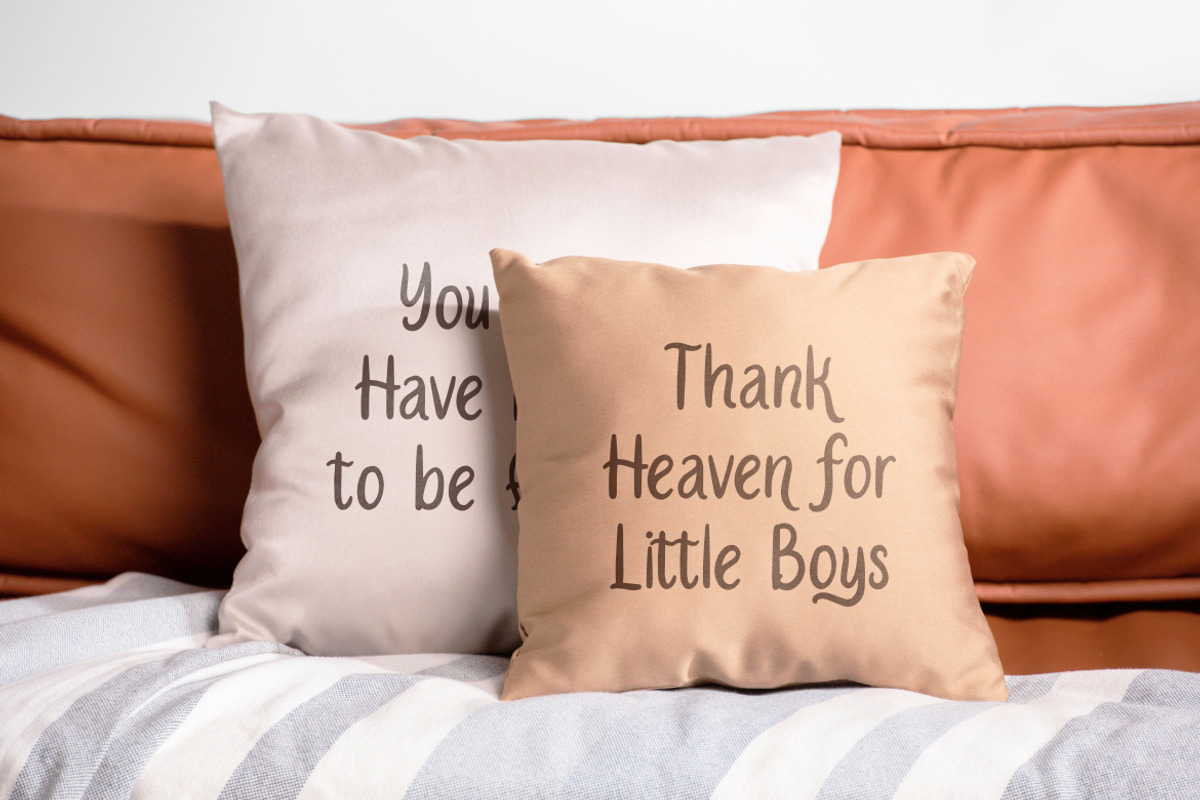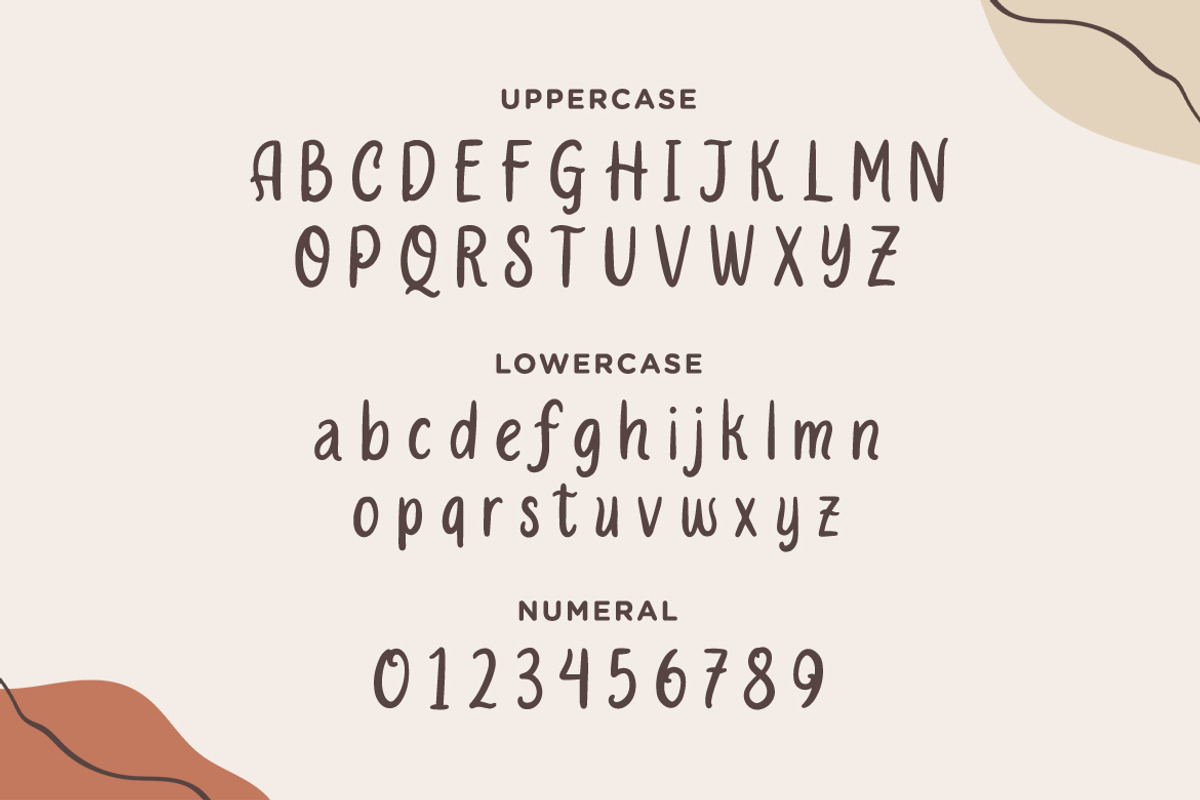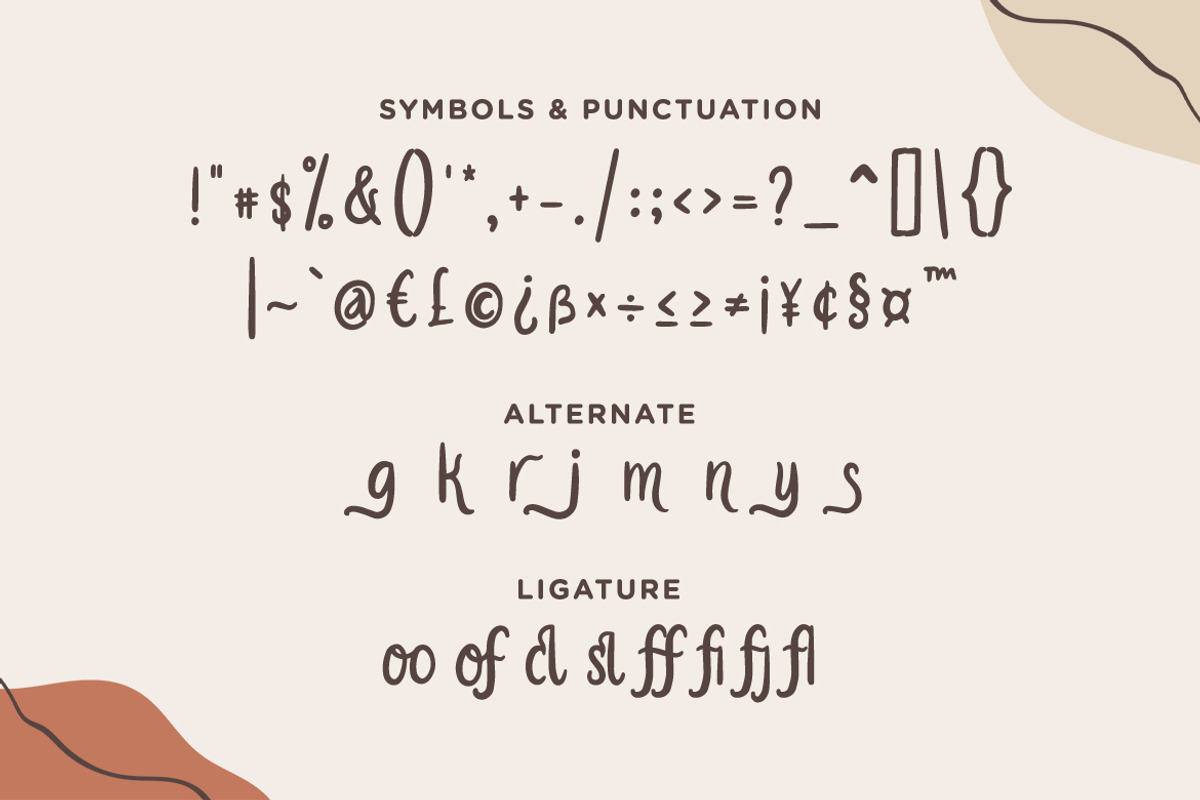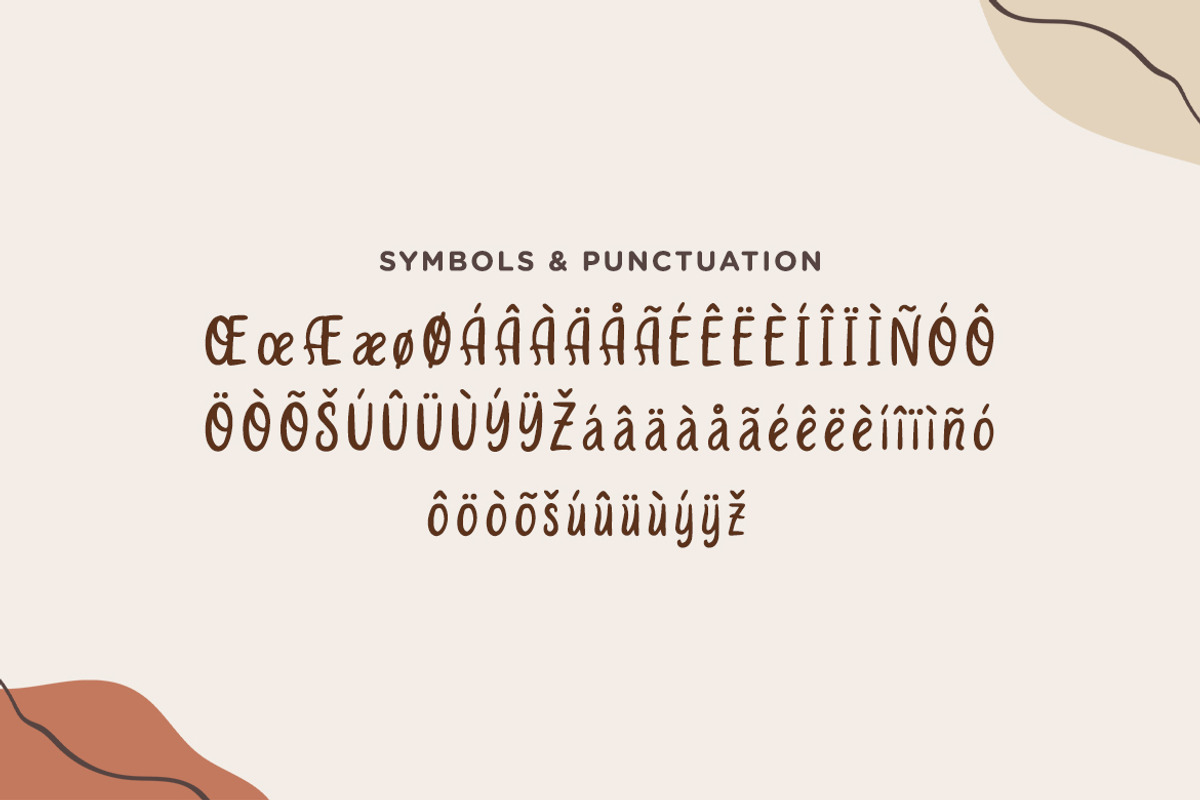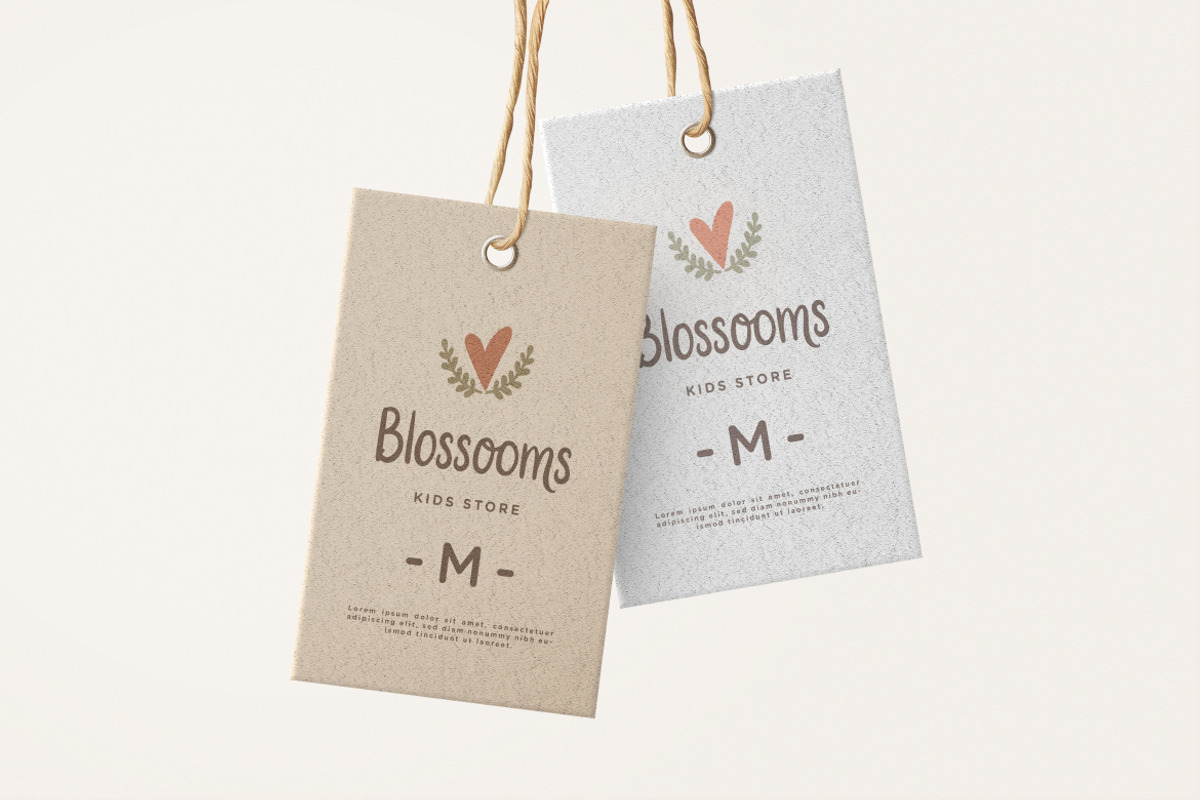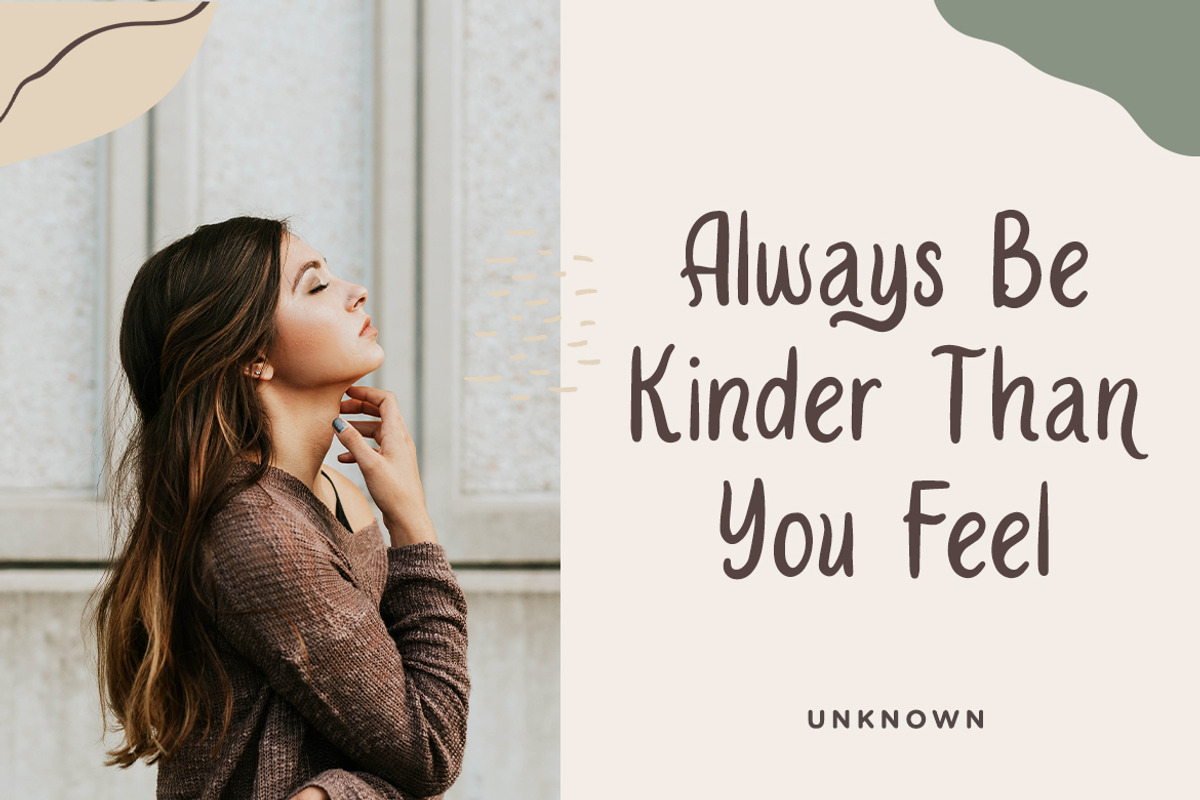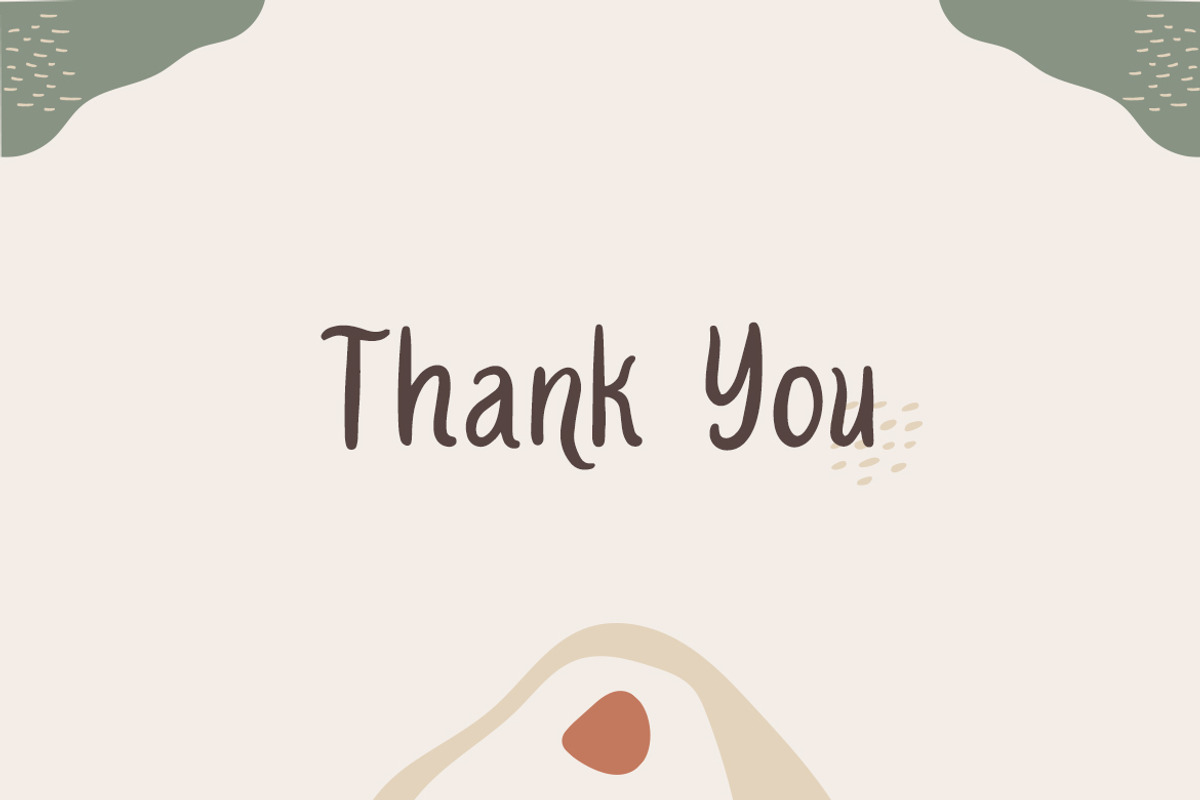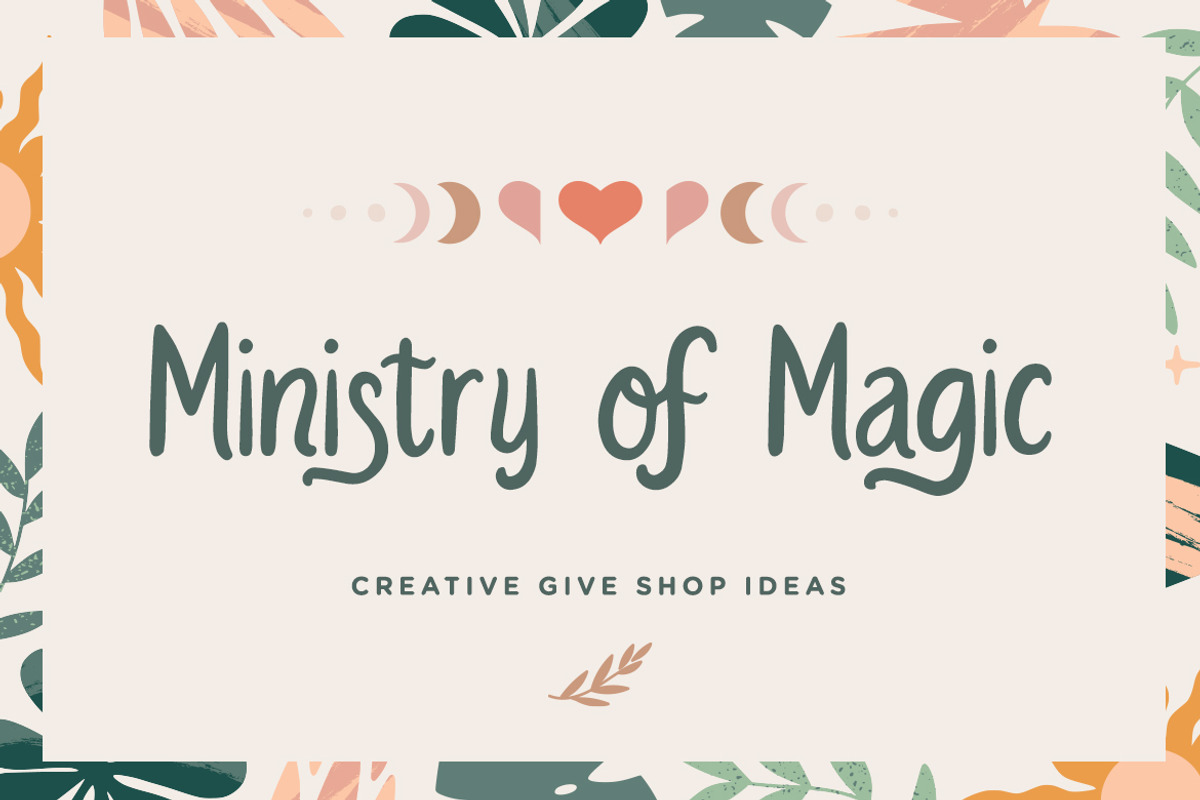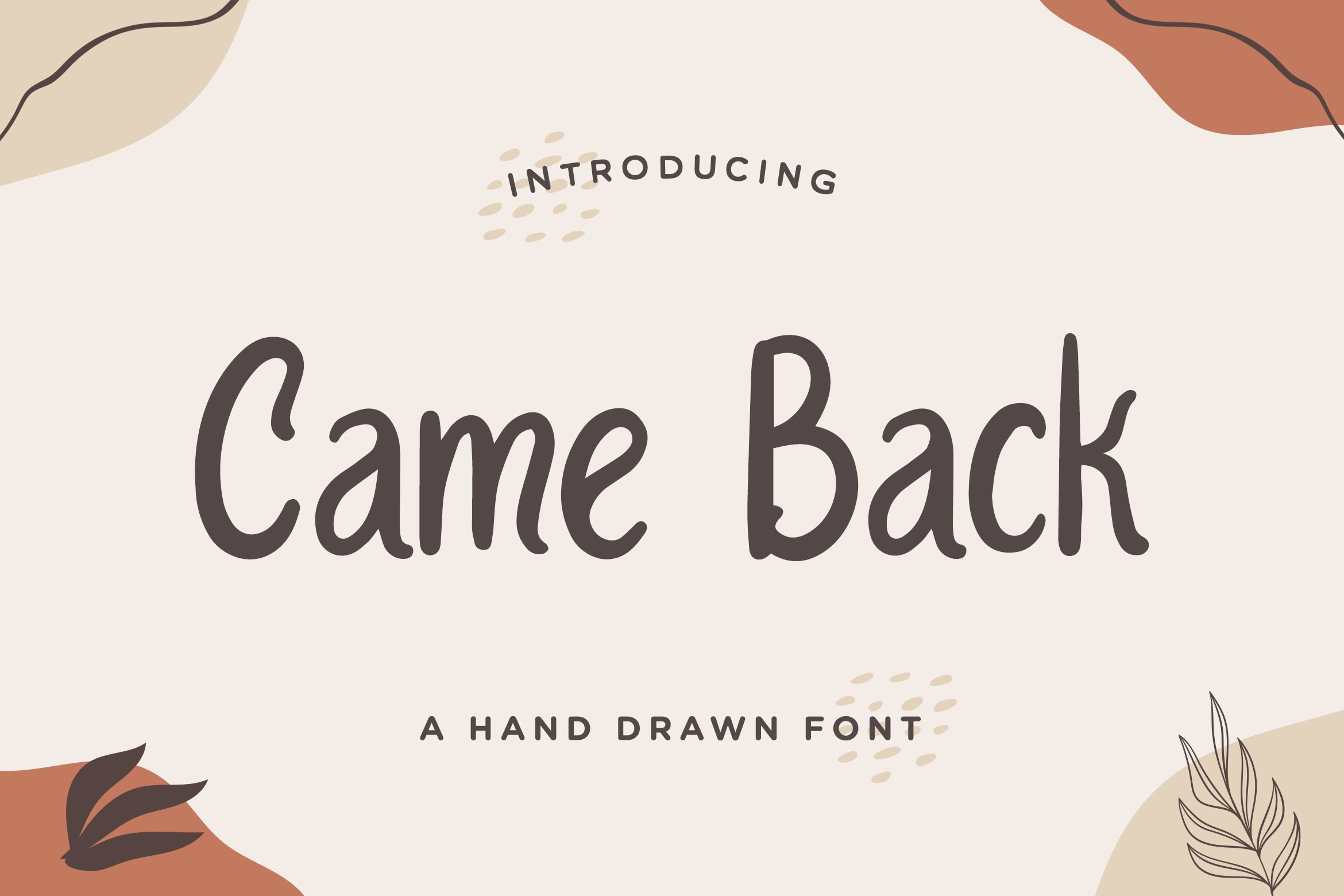
Came Back - Hand Drawn Font
Came Back is playful font which puts a smile on your projects and will inspire you to create something fun and memorable. It is perfect for headings, flyer, greeting cards, product packaging, book cover, printed quotes, logotype, design, album covers, etc